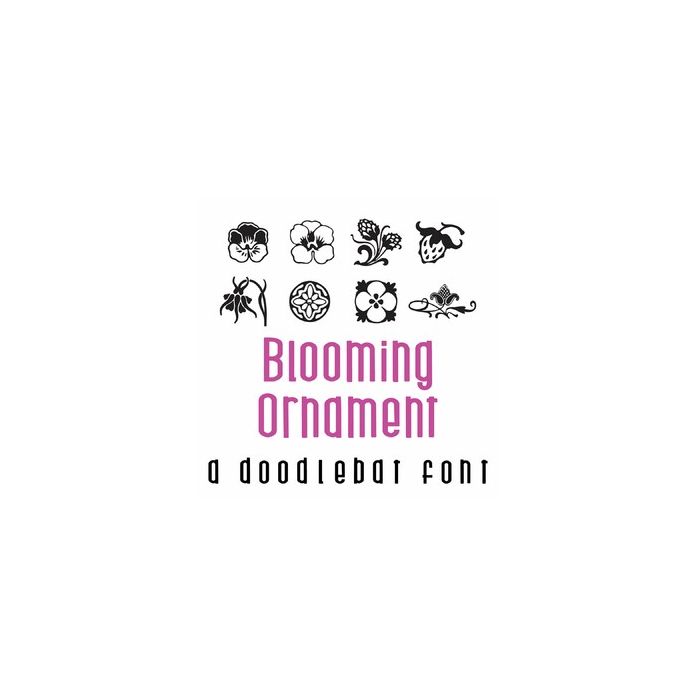
Blooming Ornament Doodlebat Font
This fun doodlebat font features 26 floral ornaments. Perfect for cards, gifts, decor, crafts, scrap book pages, planner stickers and more!